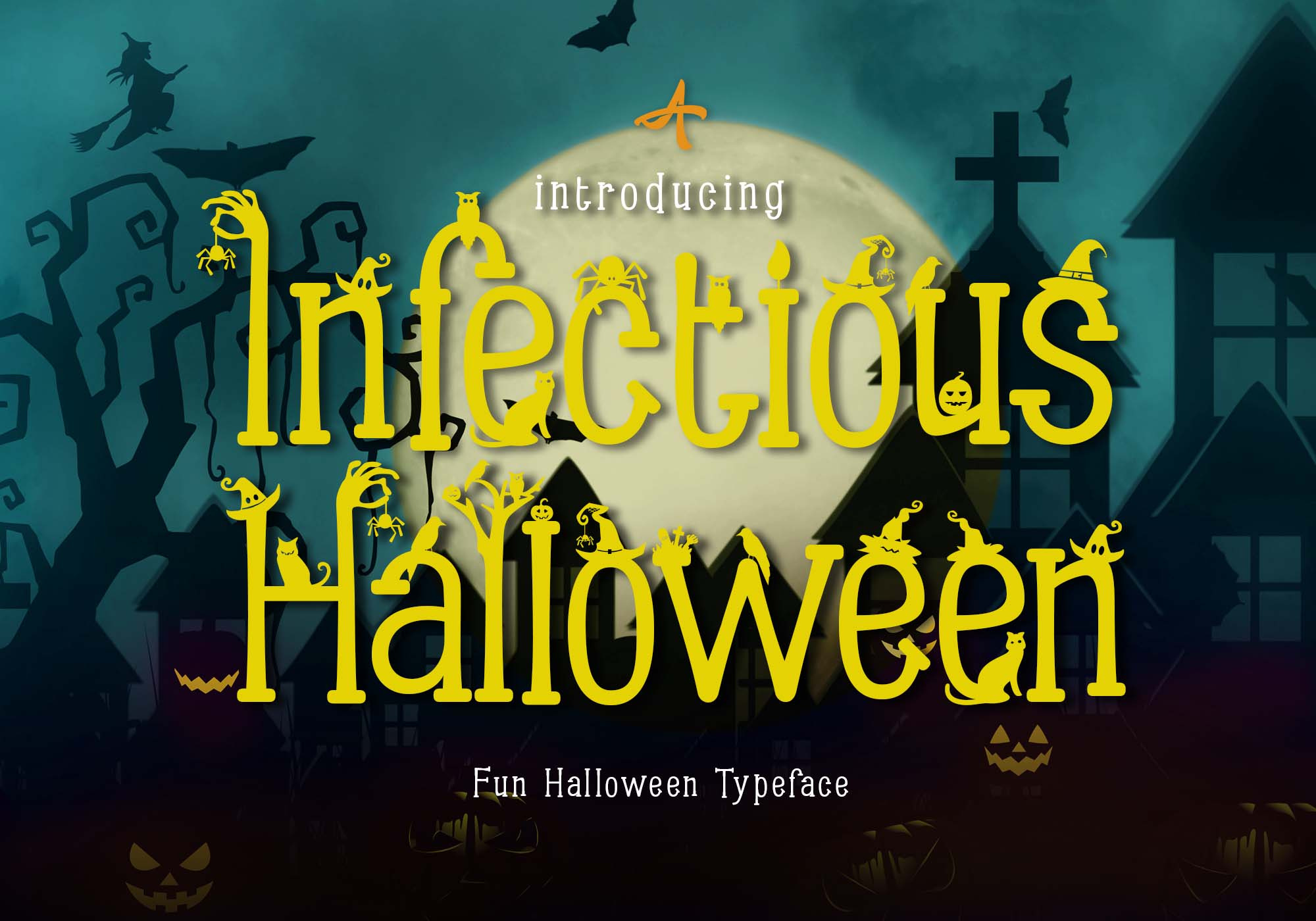
Infectious - Halloween Typeface
Infectious is a Halloween themed font with unique shapes that invite curiosity. Each letter is inspired by ancient magical symbols, with sharp strokes and curved lines that create a mysterious atmosphere.
The font is not only visually appealing, but also interactive thanks to its advanced OpenType feature. Users can combine letters, slashes, and ligatures to create creative and unexpected looks.